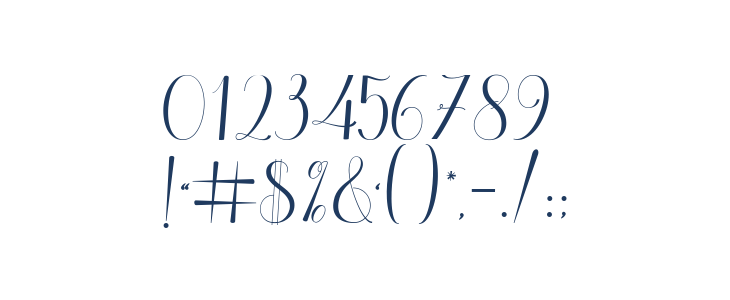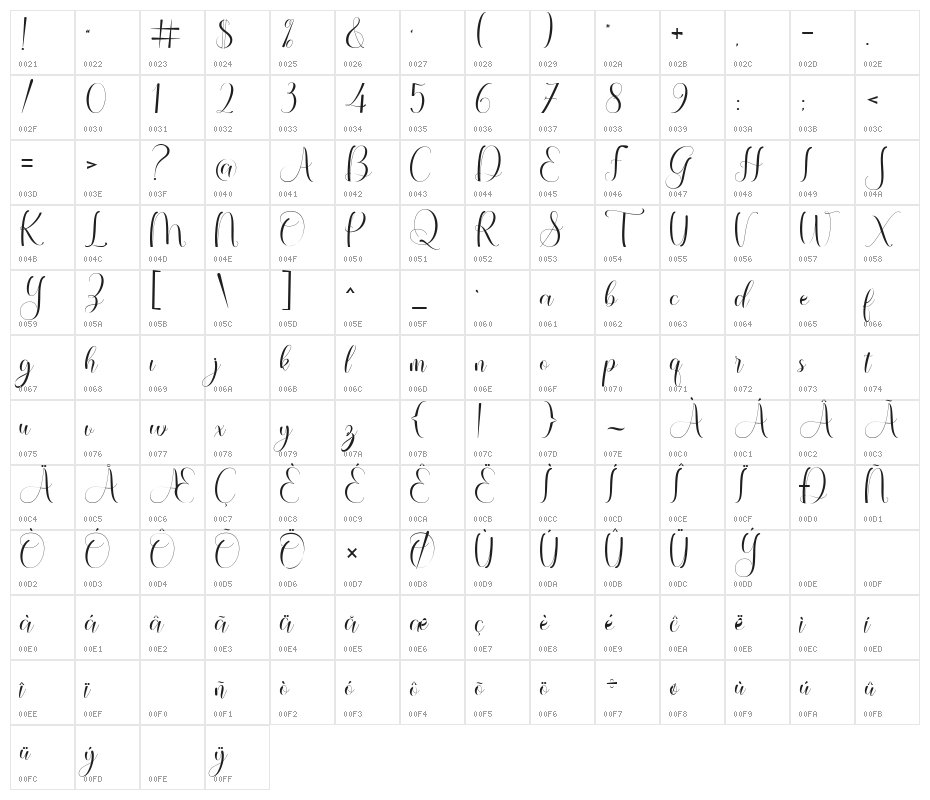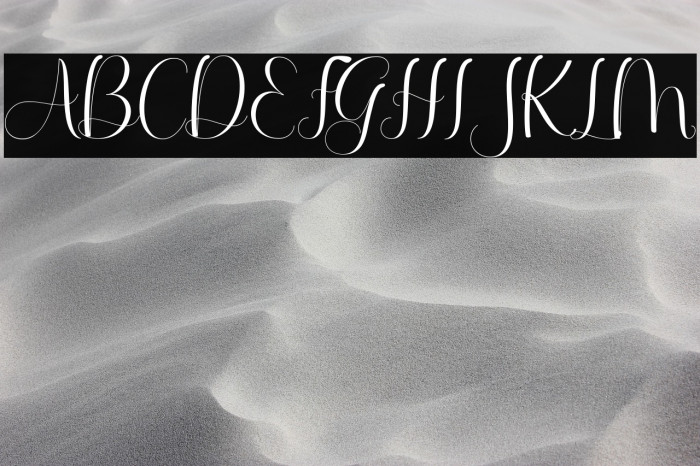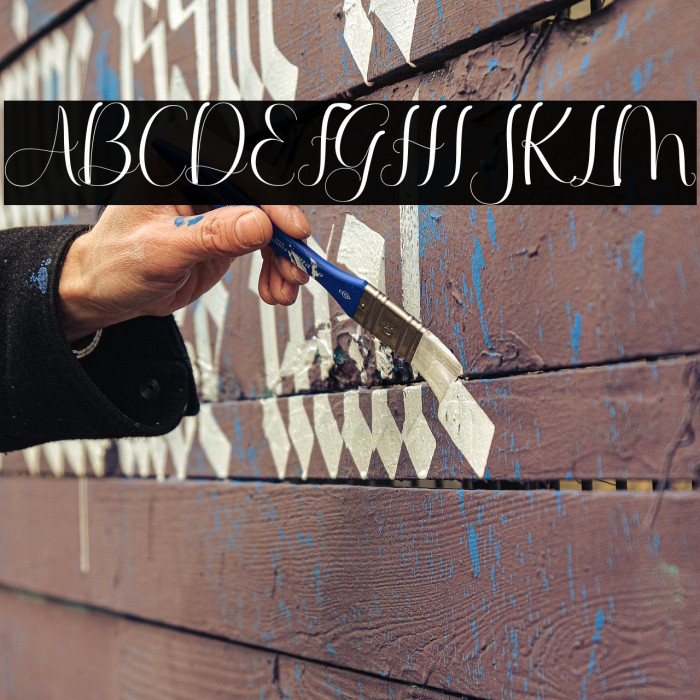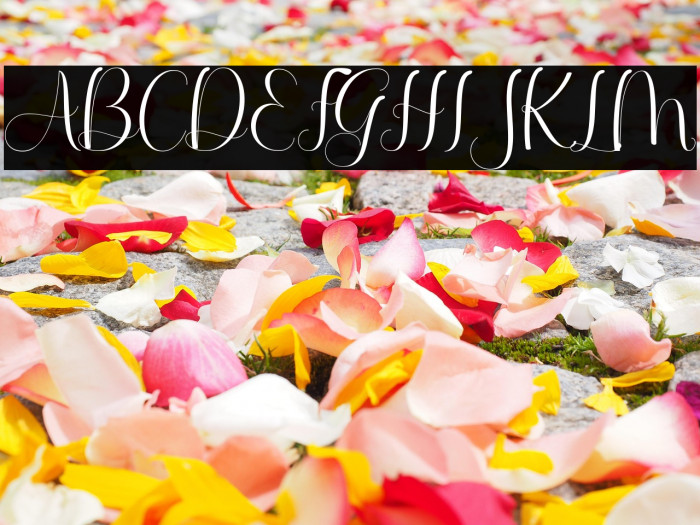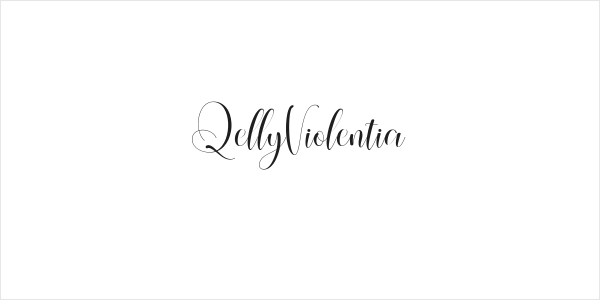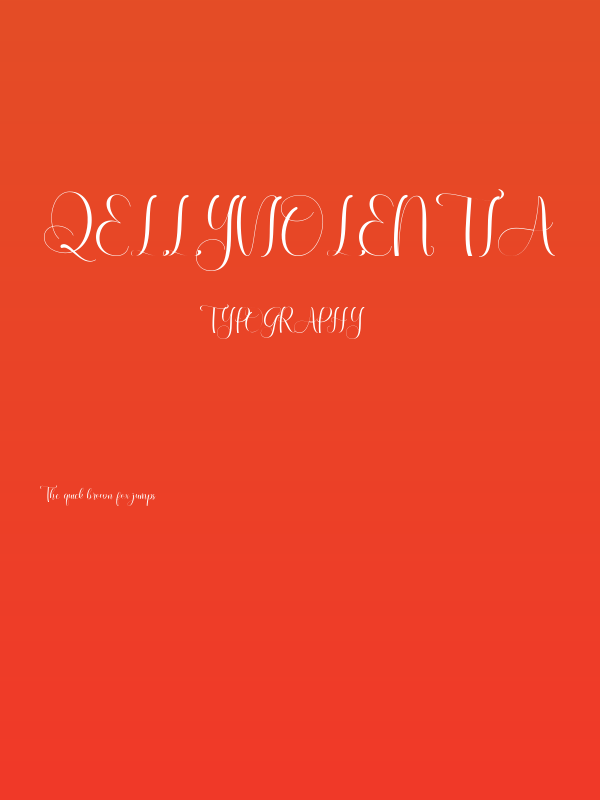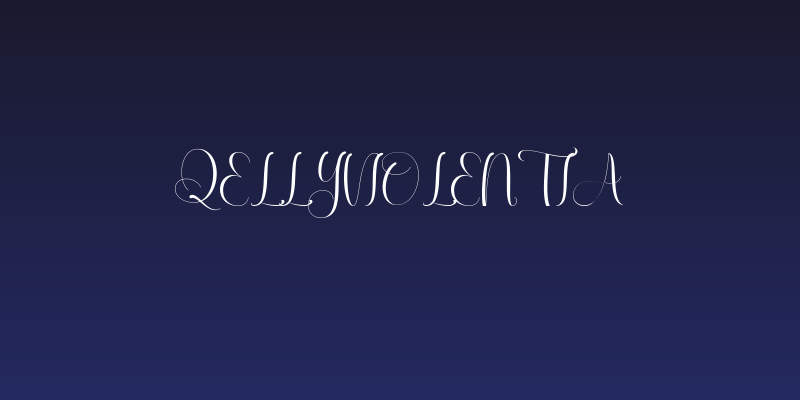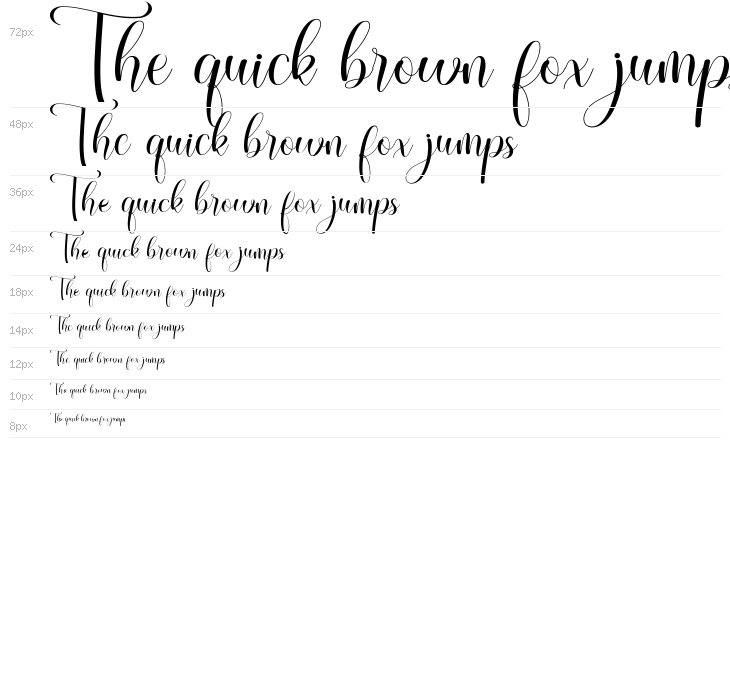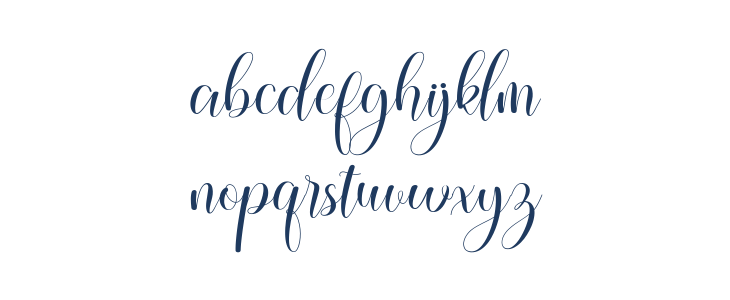
QellyViolentia Font
QellyViolentia Description
This elegant script font features flowing, interconnected letters with a distinct calligraphic style. The uppercase letters are adorned with elaborate swashes and loops, giving them a sophisticated and artistic flair. The lowercase letters maintain a graceful continuity, enhancing readability while preserving the decorative nature of the font. The numerals are stylishly curved, complementing the overall aesthetic. Special characters are designed with the same attention to detail, ensuring a cohesive appearance across all glyphs. This font is perfect for projects that require a touch of elegance and creativity.